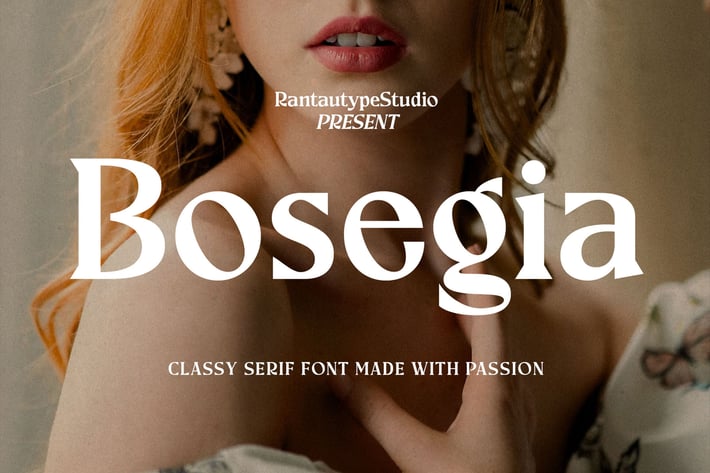
Bosegia Classy Serif Font
Bosegia is classy serif font embrace grace and feminity. Bosegia come to make your brand stand out with the harmony every character. Bosegia is a beautiful choice for any creative endeavor, creating elegant, modern, chic, lifestyle design such as logotype, title, cover, branding, invitations, wedding designs, display and magazine, social media posts, advertisements, printed quotes, product packaging, corporate brand, product designs, labels, photography, watermarks, special events and any other project with classy touch.
Standart Glyphs
Alternate and Ligature